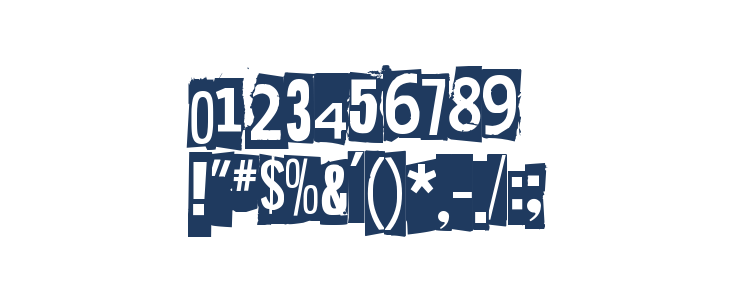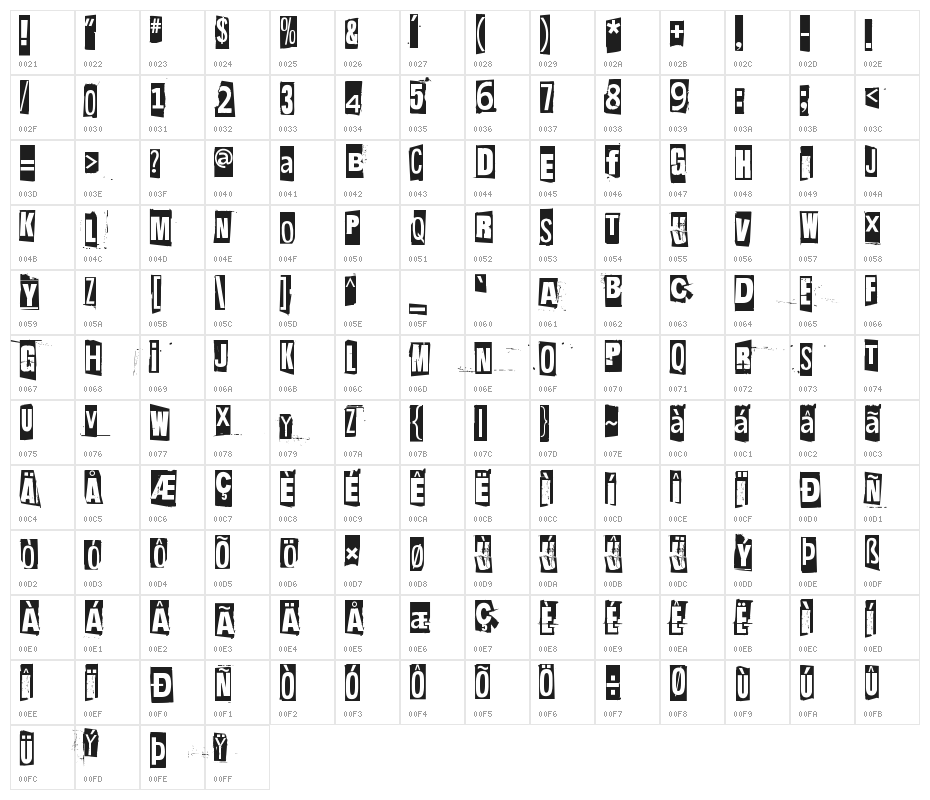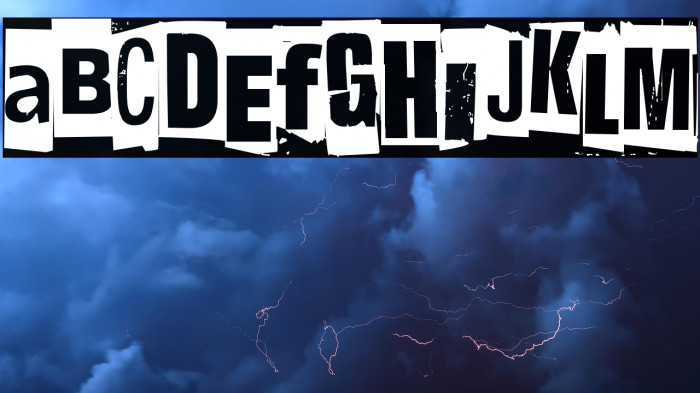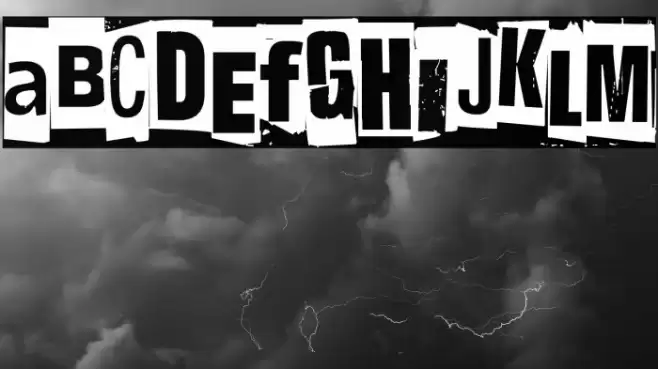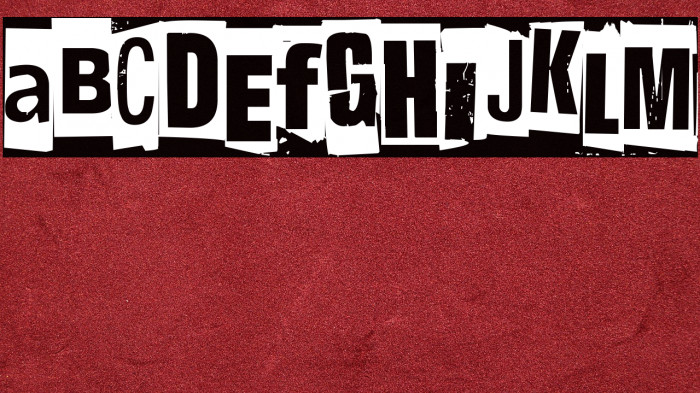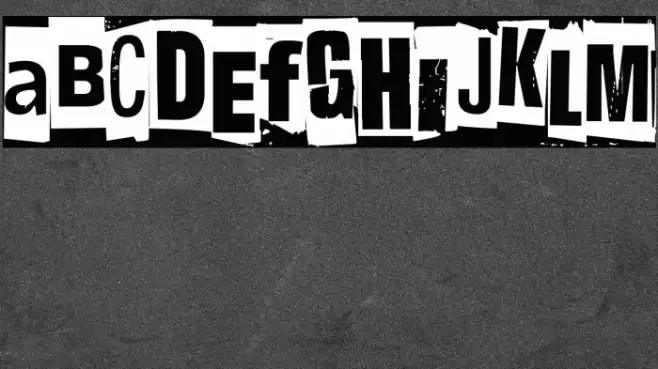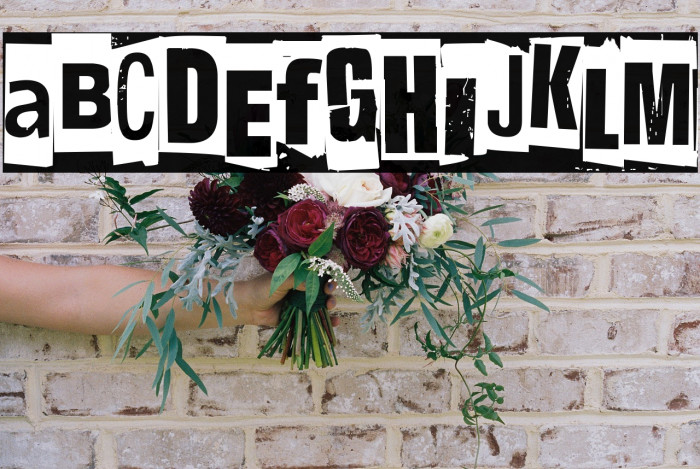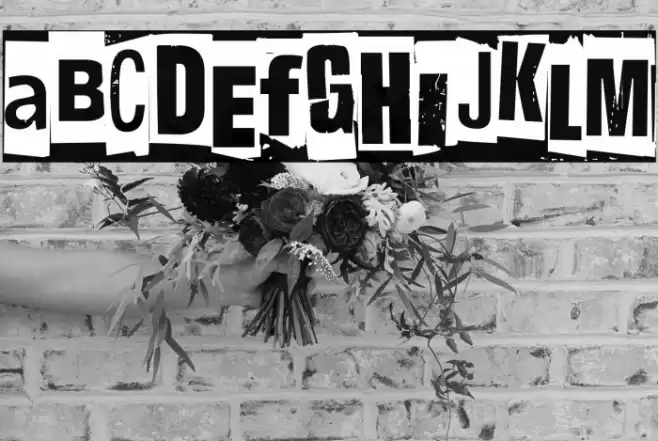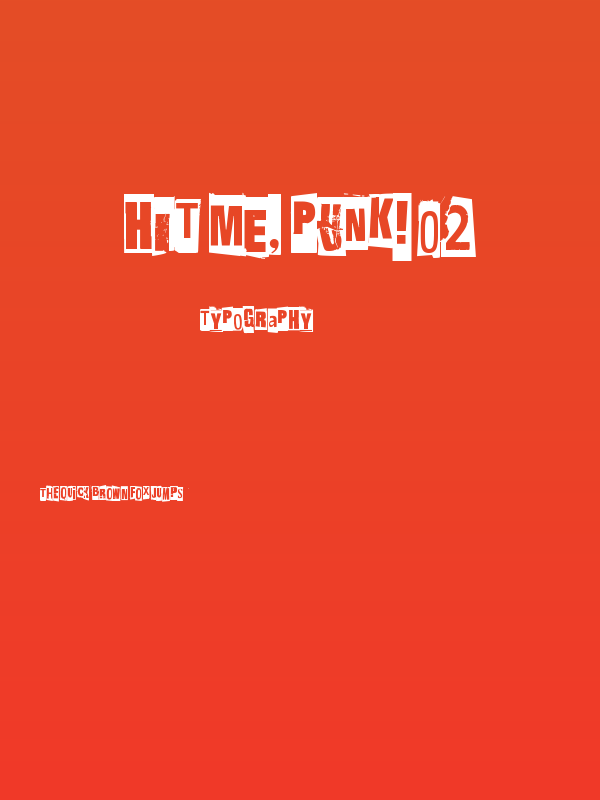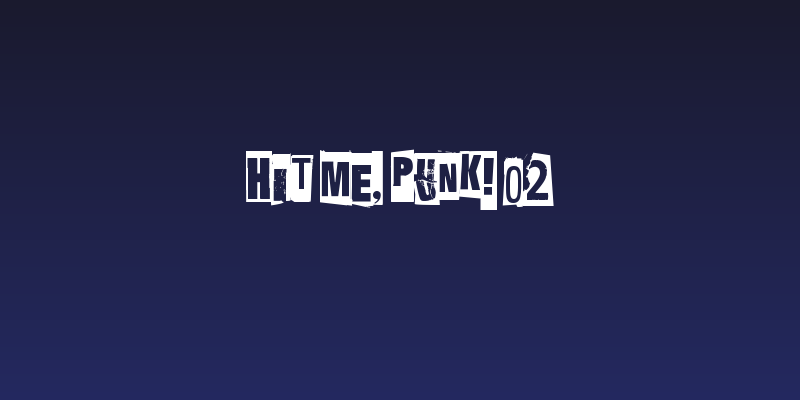
Hit me, punk! 02 Font
Hit me, punk! 02 Description
This font exudes a rebellious and edgy vibe, reminiscent of punk rock aesthetics. Each character appears as if it has been cut out from a magazine or newspaper, creating a collage effect that is both chaotic and artistic. The letters are bold and irregular, with varying sizes and angles, contributing to a sense of movement and dynamism. The distressed texture adds a gritty, raw feel, enhancing its underground appeal. This font is perfect for projects that aim to capture a sense of nonconformity and bold expression, making it ideal for music posters, album covers, and alternative fashion branding.
| Overall Style | Punk, Rebellious, Edgy |
| Proposed Projects | Ideal for music posters, album covers, alternative fashion branding, and any project seeking a bold, nonconformist look. |